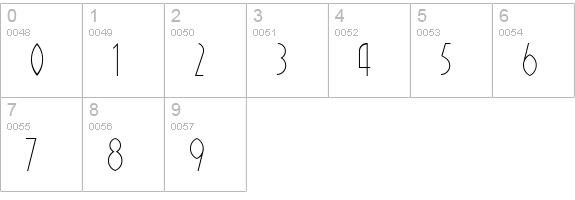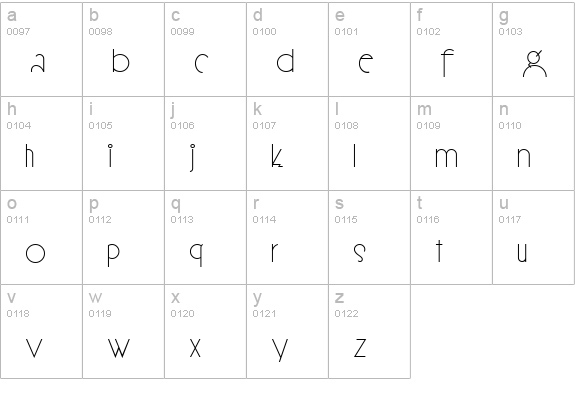
OKChoraleNF Font Details
Introducing OKChoraleNF font, a stunning display typeface that exudes elegance and charm. With its intricate details and unique design, OKChoraleNF is perfect for adding a touch of sophistication to your projects. This versatile font is ideal for a wide range of creative applications, from branding and advertising to invitations and packaging. What sets OKChoraleNF apart is not only its striking aesthetic appeal, but also its accessibility. This font is freely available to download at FontsMarket.com, making it a valuable addition to any designer's toolkit. Whether you're working on a personal project or a professional assignment, OKChoraleNF offers the perfect blend of style and functionality. Embrace the beauty of OKChoraleNF font and elevate your designs with its timeless allure. Download this exquisite typeface today and unleash your creativity with ease.